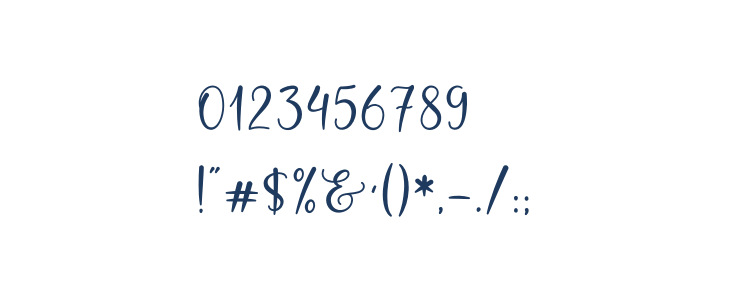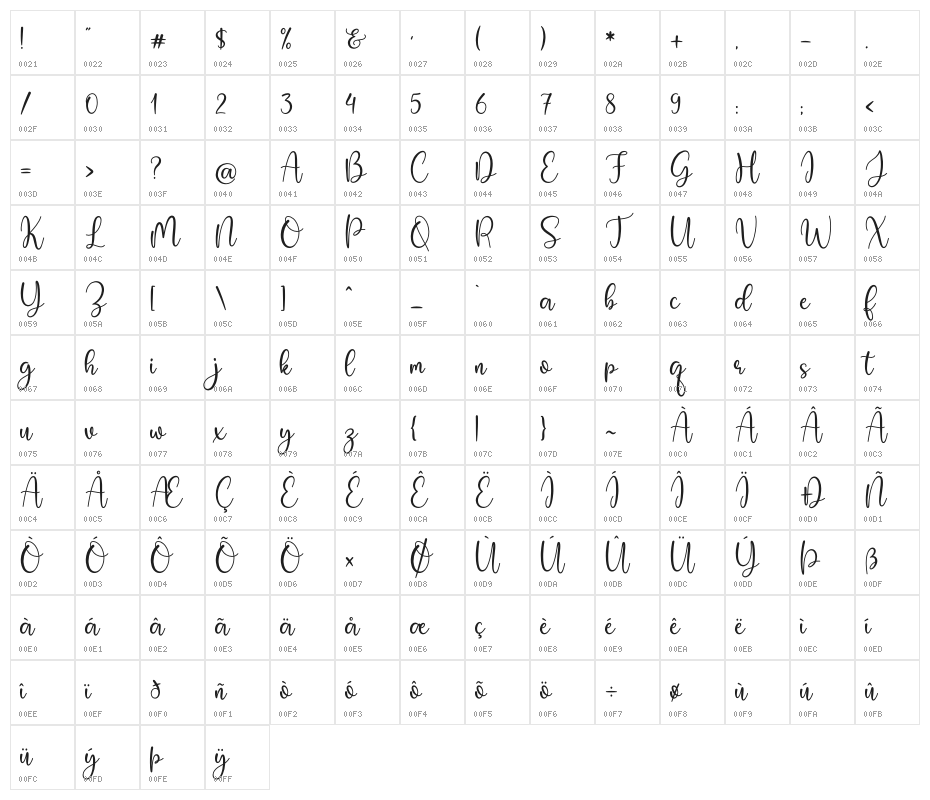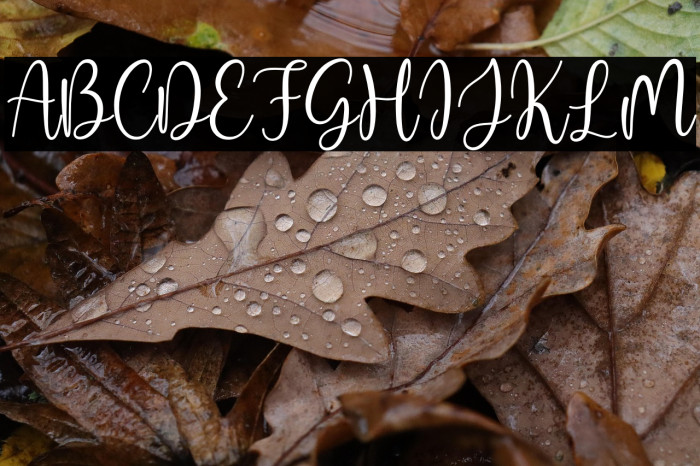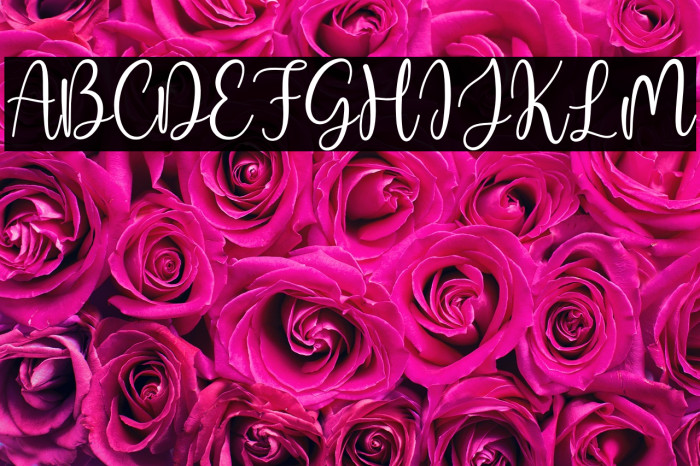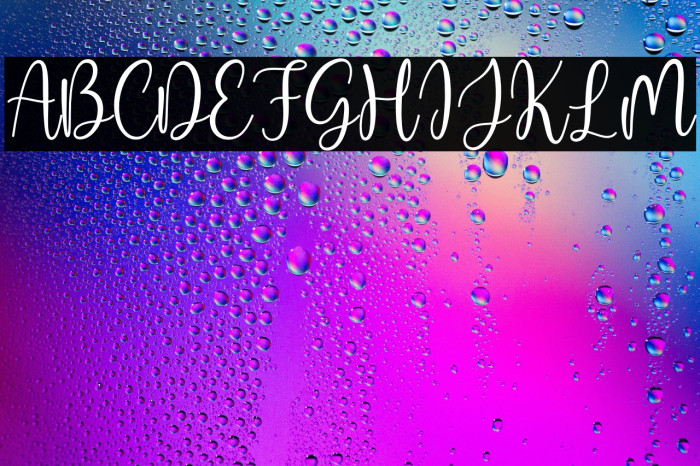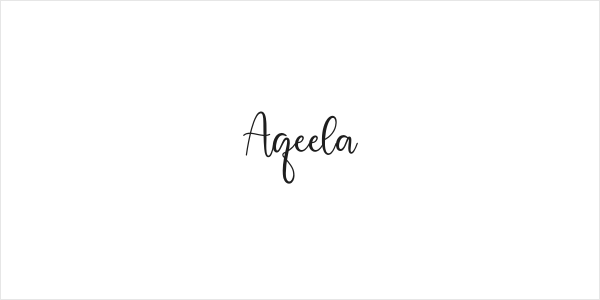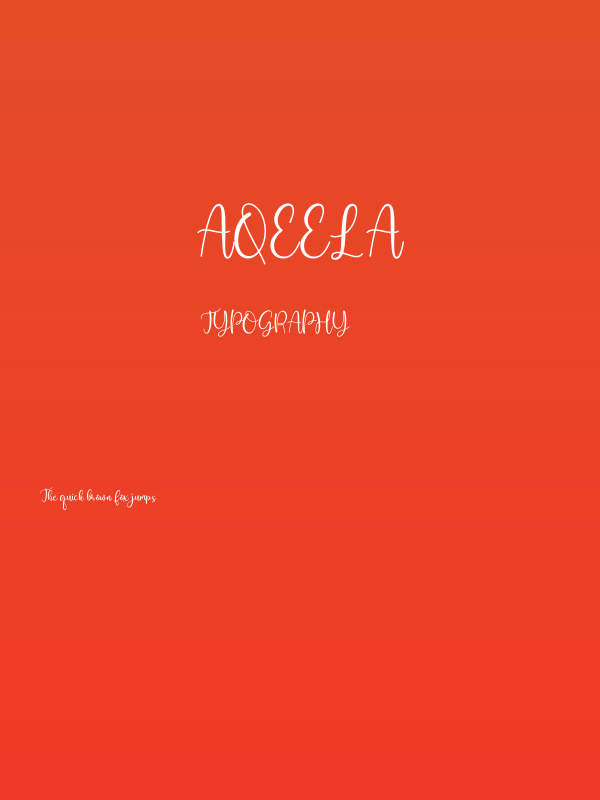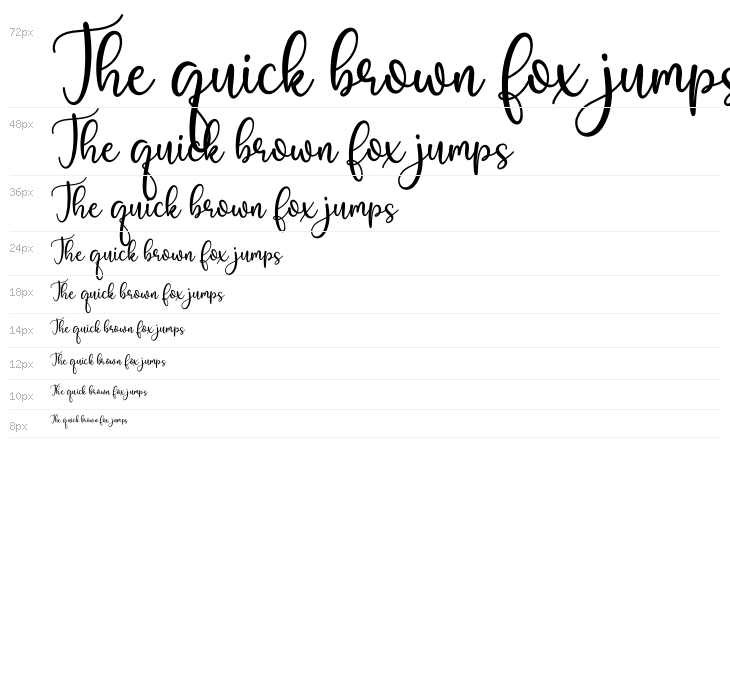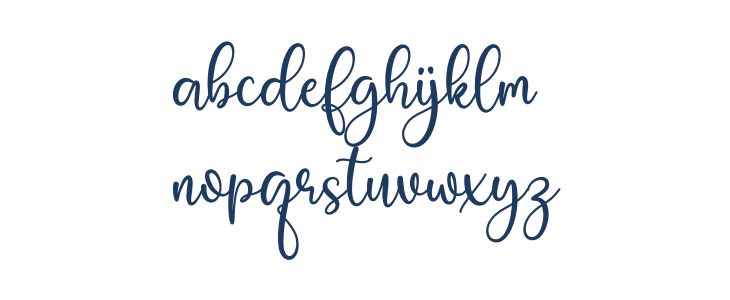
Aqeela Font
Aqeela Description
This font features a playful and elegant handwritten style, characterized by its flowing and connected letterforms. The uppercase letters are tall and slender, with a slight slant that adds a dynamic feel. The lowercase letters maintain a consistent rhythm, with loops and curves that enhance its whimsical nature. The numerals are clear and legible, matching the overall aesthetic. Special characters are thoughtfully designed to complement the script style, making it versatile for various uses. The font's charm lies in its ability to convey a personal and friendly tone, ideal for creative projects.
| Use Case | Logos, Invitations, Social Media |
| Proposed Projects | Ideal for wedding invitations, greeting cards, branding, and social media graphics. |